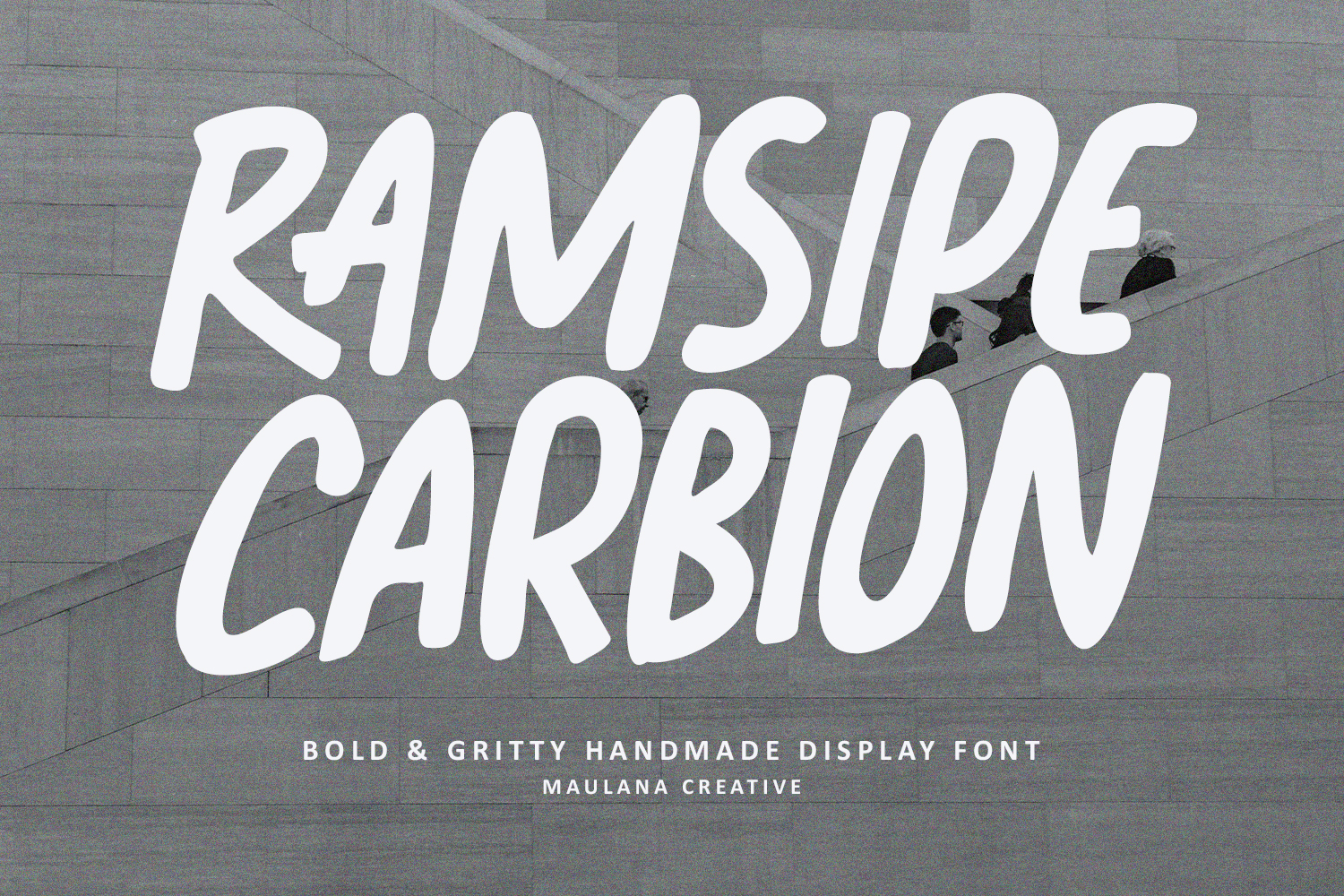
Ramsipe Carbion Bold Gritty Handmade Display Font
Ramsipe Carbion is a high impact, handmade display font designed to bring raw energy and authentic character to your creative projects. Crafted by Maulana Creative, this typeface features thick, expressive brushstrokes and a natural "marker" feel that bridges the gap between urban street art and contemporary graphic design.
Its bold weight and slightly irregular edges give it a powerful, human touch that stands out against clean digital layouts. Whether you are designing edgy eye-catching social media, or high-energy sports branding, Ramsipe Carbion delivers a loud and unmistakable message.
Key Features:
- Authentic Handmade Texture: Maintains the organic flow of manual lettering.
- Maximum Readability: Despite its gritty style, the letterforms remain clear and punchy.
- Versatile Application: Perfect for headlines, logos, and bold advertising.
- Character Set: Uppercase letters that play perfectly together.
- Unique Ligatures: Specialized ligatures to add a custom, hand-lettered feel to your text.
- Numbers & Punctuation: A complete set of numerals and symbols for professional use.
- Multilingual Support: Ready for global design needs.
- Perfect for: Logos, Branding, Graphic designs, Poster Art, Quote graphics, Packaging, Magazine headers, and Retro-themed invitations.